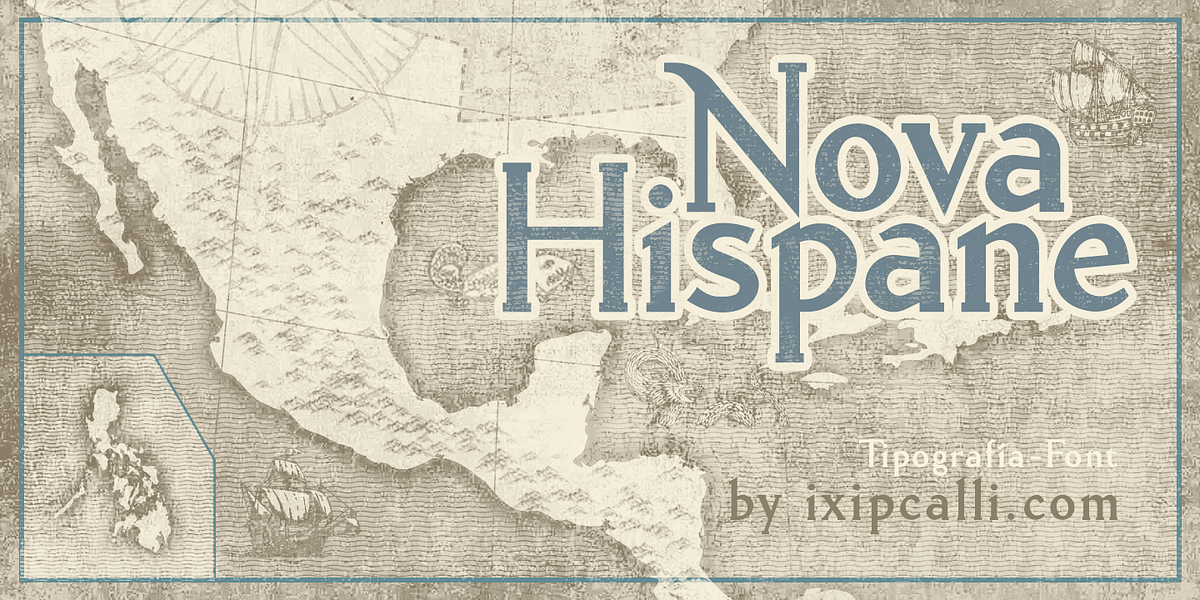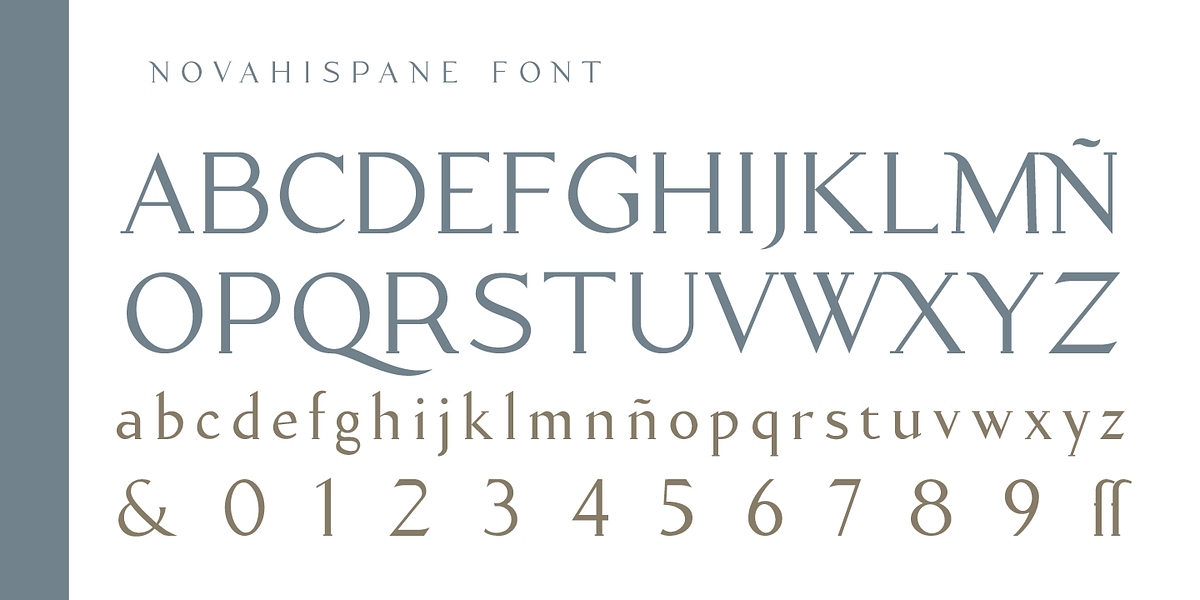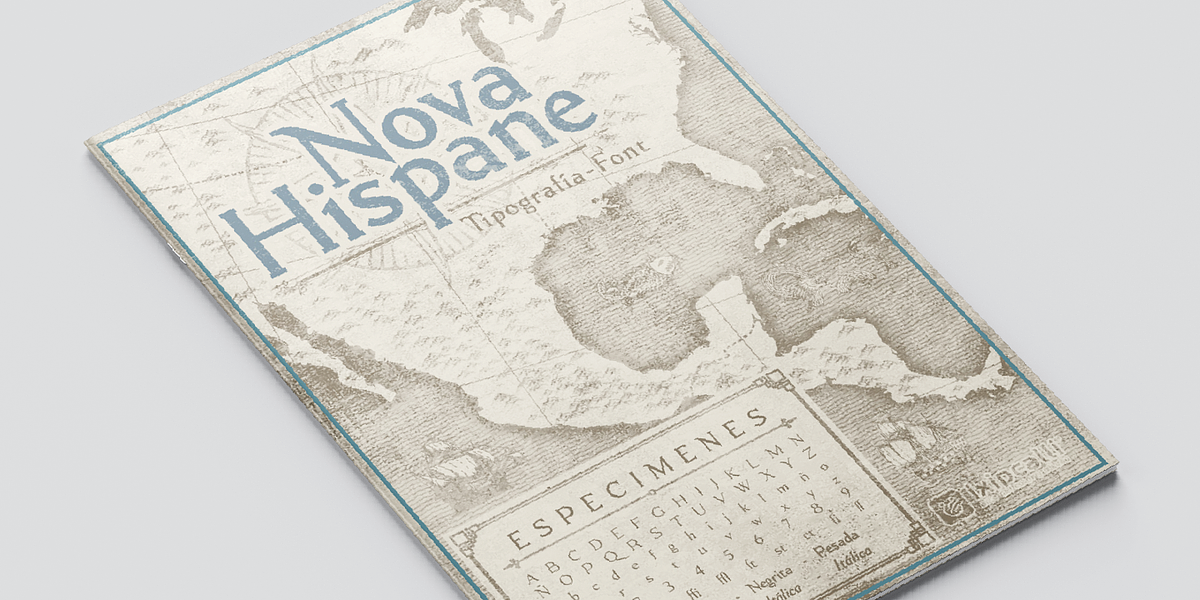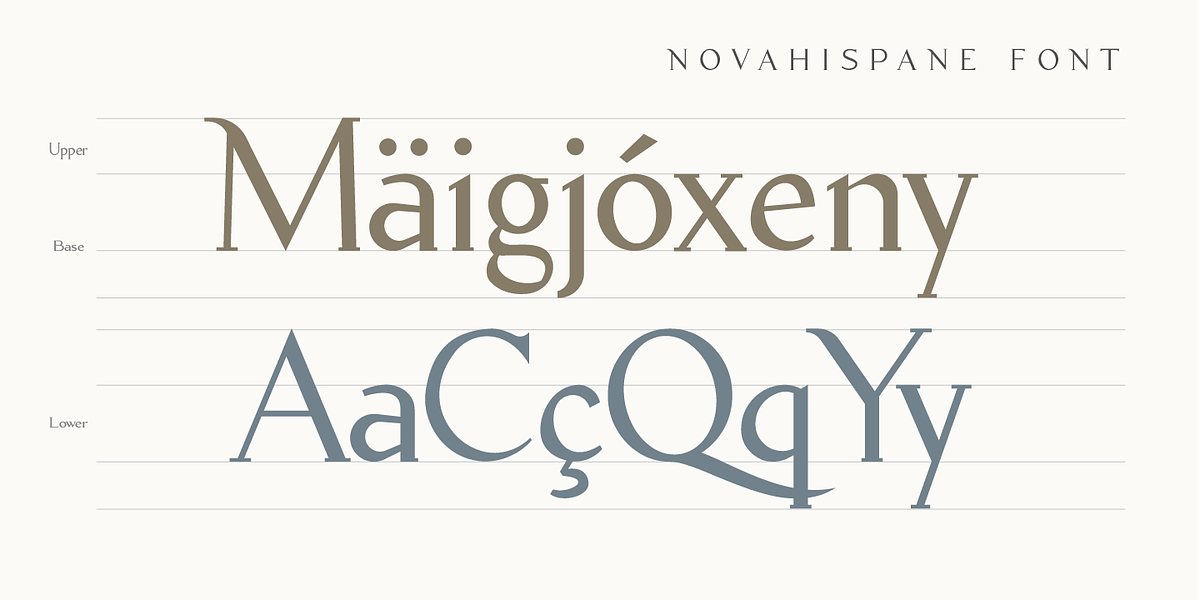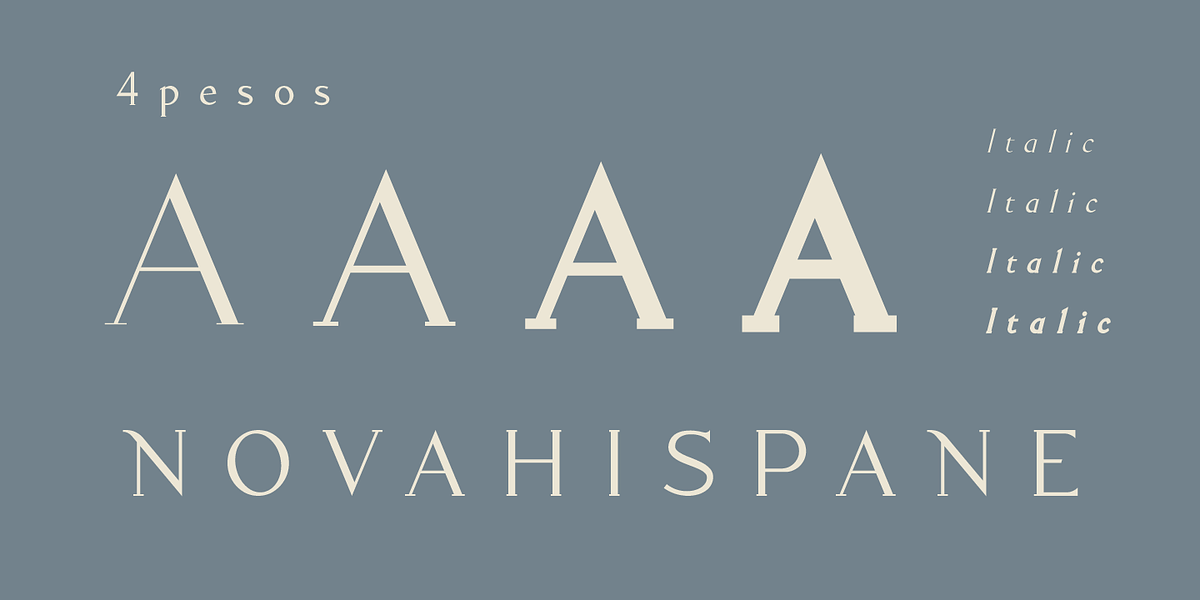
NovaHispane
The Nova Hispane font is a serif font with a clear, serious, elegant, antique, and modern feel. This font is perfectly suited for use in books, magazines, or any printed medium that requires a mix of traditional and modern styles. Its four weights—Light, Regular, Bold, and Heavy—create a striking visual contrast to highlight words in the text, and each weight also has italic forms.